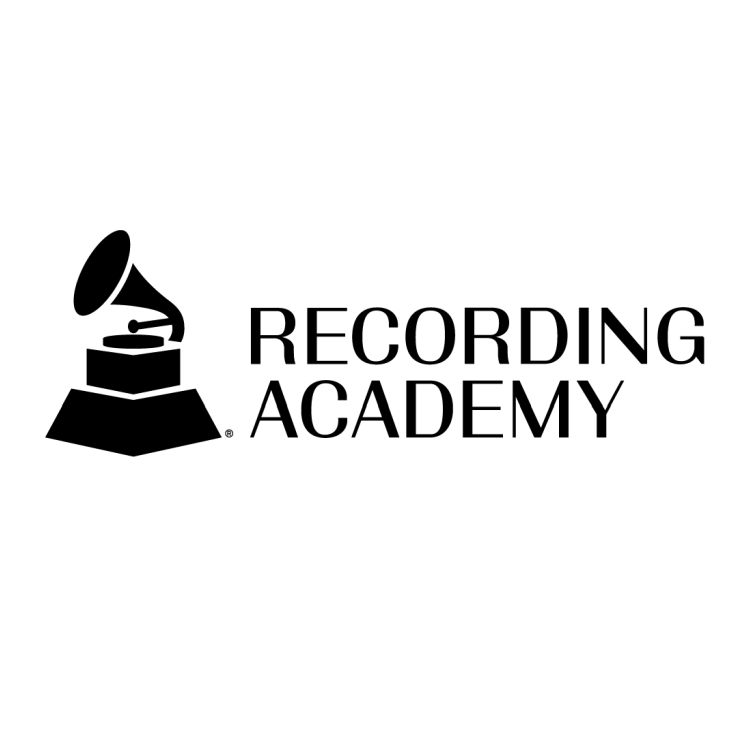
The Recording Academy Font
Fonts in UseThe Recording Academy also known as the National Academy of Recording Arts and Sciences (NARAS), is a professional organization that is dedicated to promoting the music industry and recognizing excellence in music. They are responsible for organizing and presenting the annual Grammy Awards.
In 2018, The Recording Academy unveiled a new logo designed by Siegel+Gale. It retains the gramophone symbol but features the Francis Gradient font, a sans-serif with thick and thin strokes, which is also ideal for headlines.